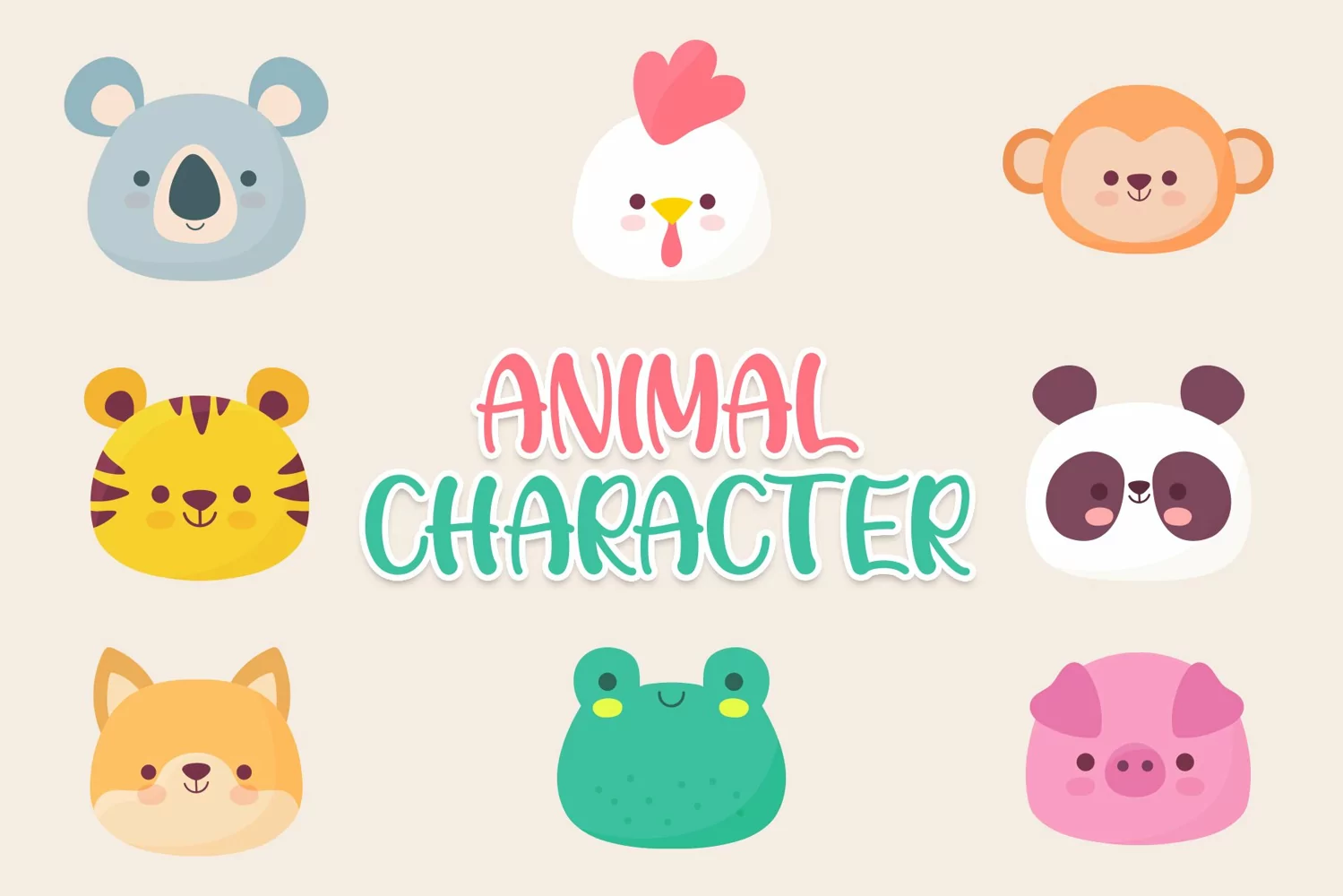
Chill Rabit is a fun and cute display font. It has a playful style and great readability. It’s perfect for cards, branding, stationery, blog design, custom art, quote, custom stamps, custom embossers, book, apparel, packaging, headline, or much more! It will add a unique feel and looks stunning to any design project! This font is PUA encoded which means you can access all of the cute glyphs with easy! It also features a wealth of including ligatures.